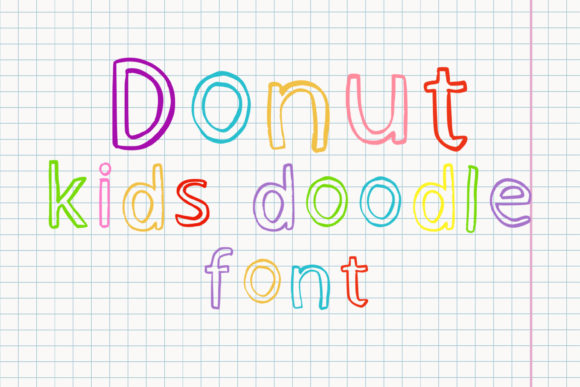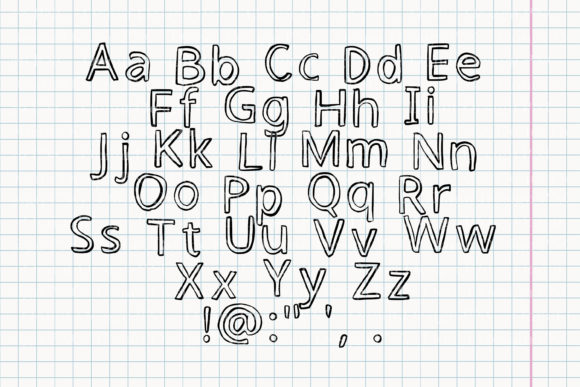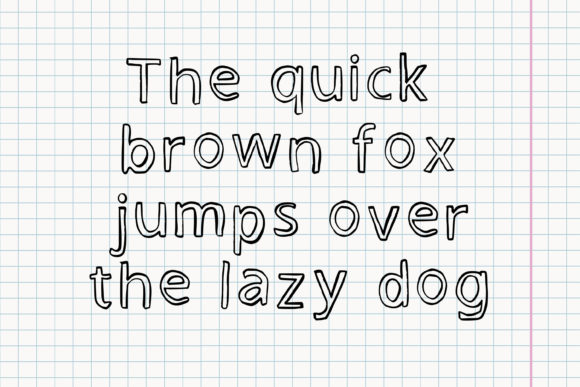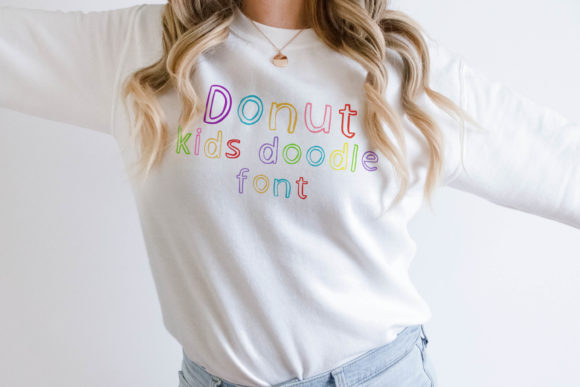
Donut Kids Doodle Font
About the Donut Kids Doodle Font
Step up your design game with Donut Kids Doodle Font, a font that exudes confidence and style. Donut Kids Doodle is a cute hand-drawn outlined display font, great for creating outstanding designs. Its informal style and casual vibe will make this font a go-to choice for each of the creations that require a relaxed touch.
Donut Kids Doodle excels in applications requiring a playful and approachable aesthetic. Ideal uses include children’s book illustrations, playful branding for food products or toys, eye-catching posters for events targeting a younger demographic, and quirky packaging designs. It’s less suitable for body text or UI elements due to its low readability at smaller sizes.
For effective pairings, consider pairing Donut Kids Doodle with a clean sans-serif like Open Sans for body copy or a slightly more geometric sans-serif for a modern contrast. A simple serif like Merriweather can add a touch of sophistication, balancing the font’s informal charm. Avoid pairing it with overly ornate or overly serious fonts.
The font’s core personality is undeniably cheerful and informal. Its hand-drawn quality conveys a sense of warmth and approachability, making it perfect for projects that need a friendly, lighthearted feel.
Donut Kids Doodle Font Usage Examples
Donut Kids Doodle Font Example